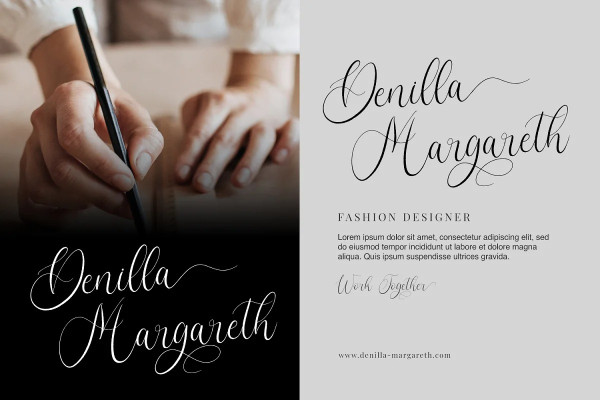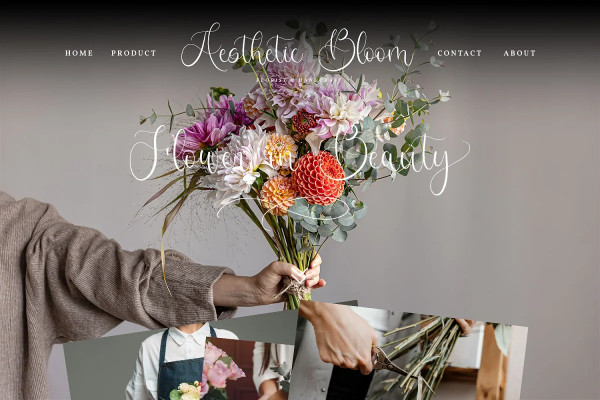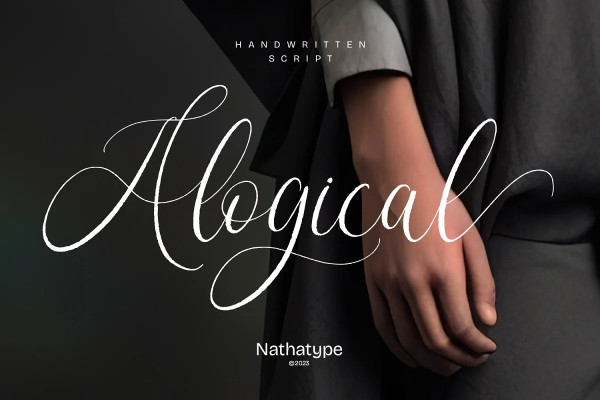
Alogical Font
Alogical Font is a captivating script font that beautifully captures the essence of cursive handwriting with a touch of eloquence. Each letter in Alogical Font is meticulously crafted with high contrast outlines, adding a dynamic and eye-catching quality to the font. The combination of bold strokes and delicate lines creates a sense of fluidity and elegance, enhancing the overall visual appeal.
The swaying circular finish lines in Alogical bring a sense of movement and grace to the font. These captivating details add a flourish of creativity and uniqueness, making the script come to life with a touch of playfulness. With its smooth and flowing letterforms, Alogical offers a natural and seamless writing style, evoking the charm of handwritten notes. For the best legibility you can use this font in the bigger text sizes. Enjoy the available features here.